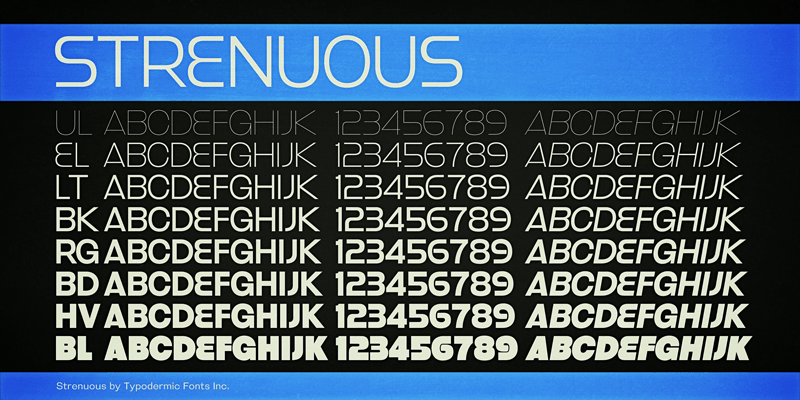
Strenuous is a funky headliner inspired by the film, Black Eye. Scientists have recently discovered that it’s full of “soul” and leading experts consider Strenuous to be somewhat “superbad”. Don't forget to read the files inside the zip for details. These fonts include a license that allows free commercial use: sometimes referred to as a desktop license. This allows you to install the fonts on a computer and use them to create posters, web graphics, game graphics, t-shirts, videos, signs, logos and more. Read the license agreement for details. If you'd like to embed these fonts in an app, ebook, on the web or anything that's not covered by the desktop license agreement, visit the link below. You'll find distributors who offer different types of licenses or you can contact me for help. http://typodermicfonts.com/strenuous/ These free fonts are part of a larger font family. Check out the rest of the family through the link above. |